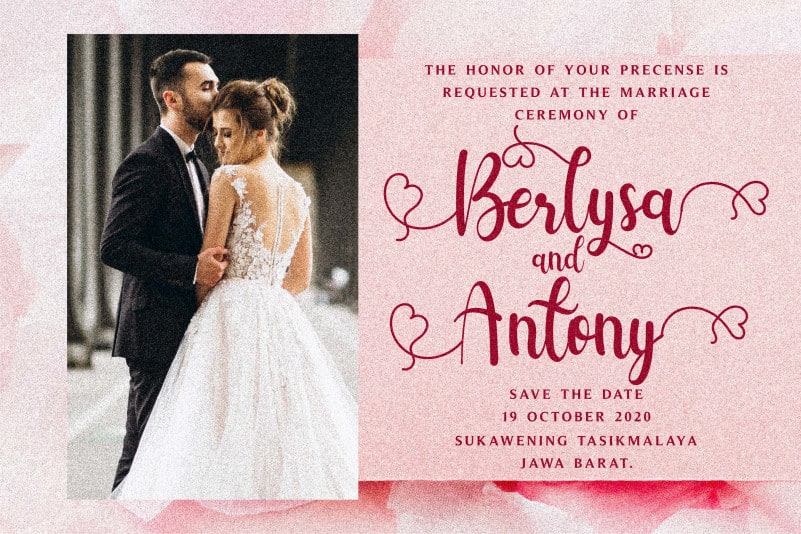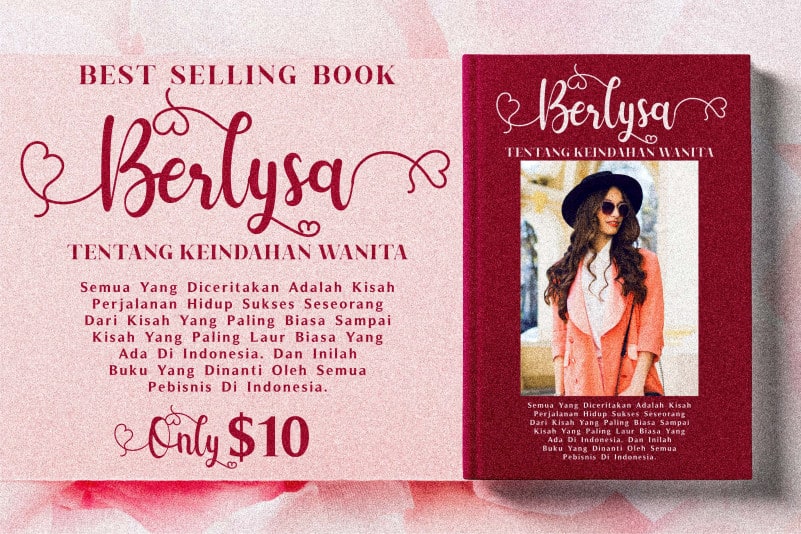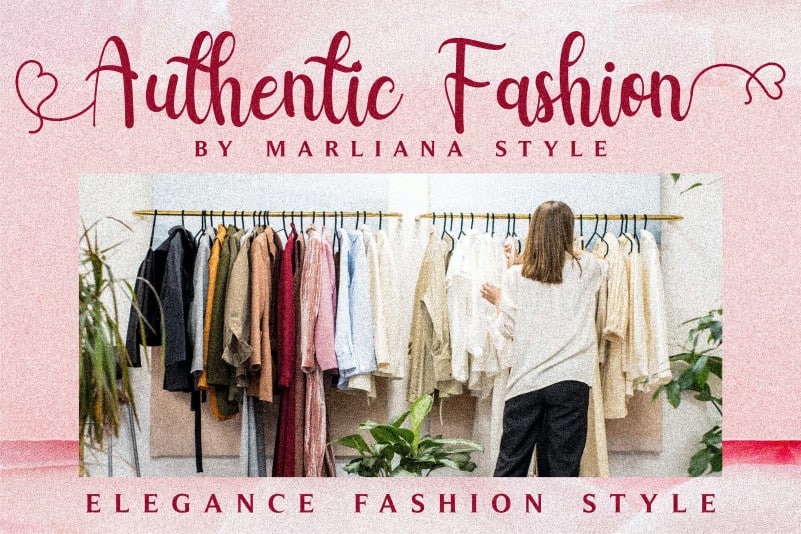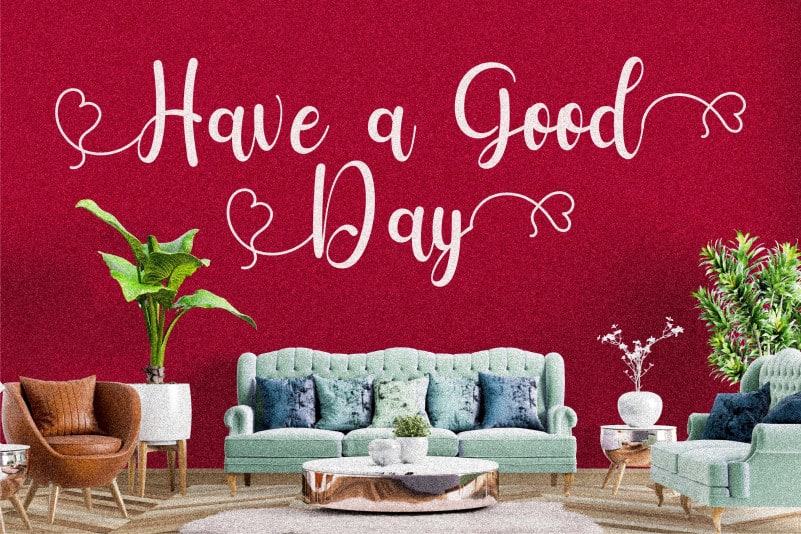
Berlysa Script Font is a beautiful and romantic handwritten font. This versatile script font has a wide spectrum of applications ranging from greeting cards to headlines and is guaranteed to add a personalized feel to your next project. This font is PUA encoded which means you can access all of the glyphs and swashes with ease!